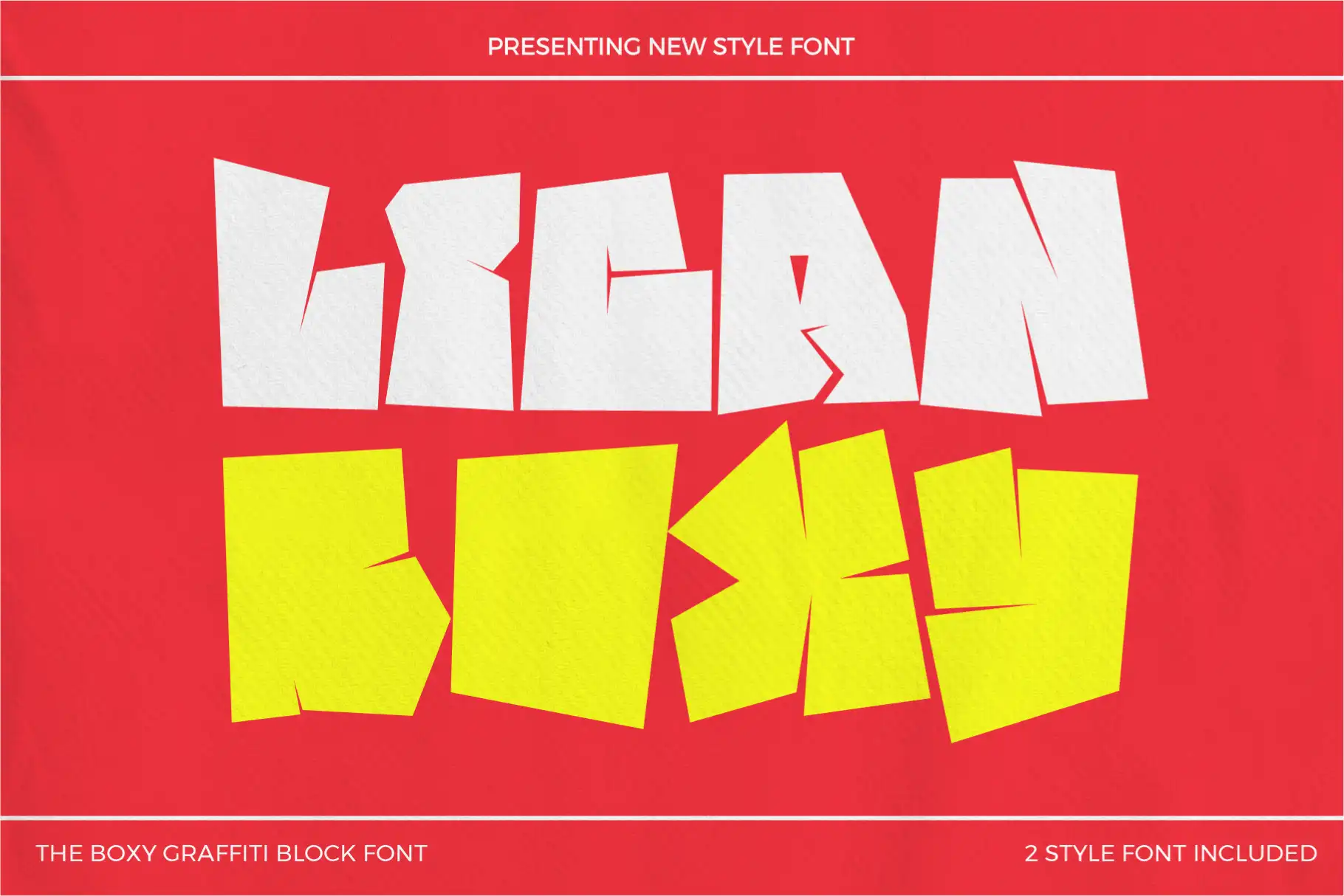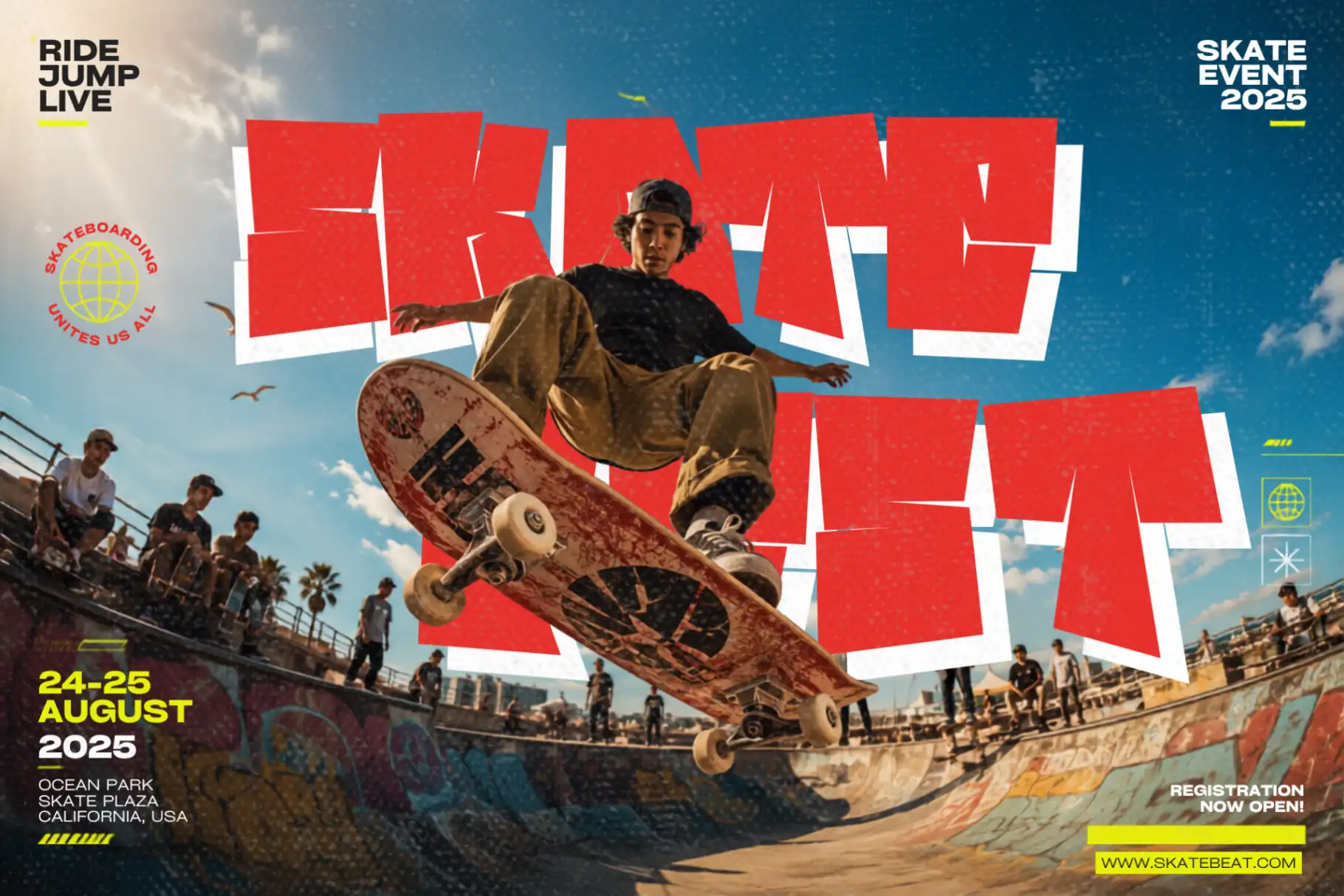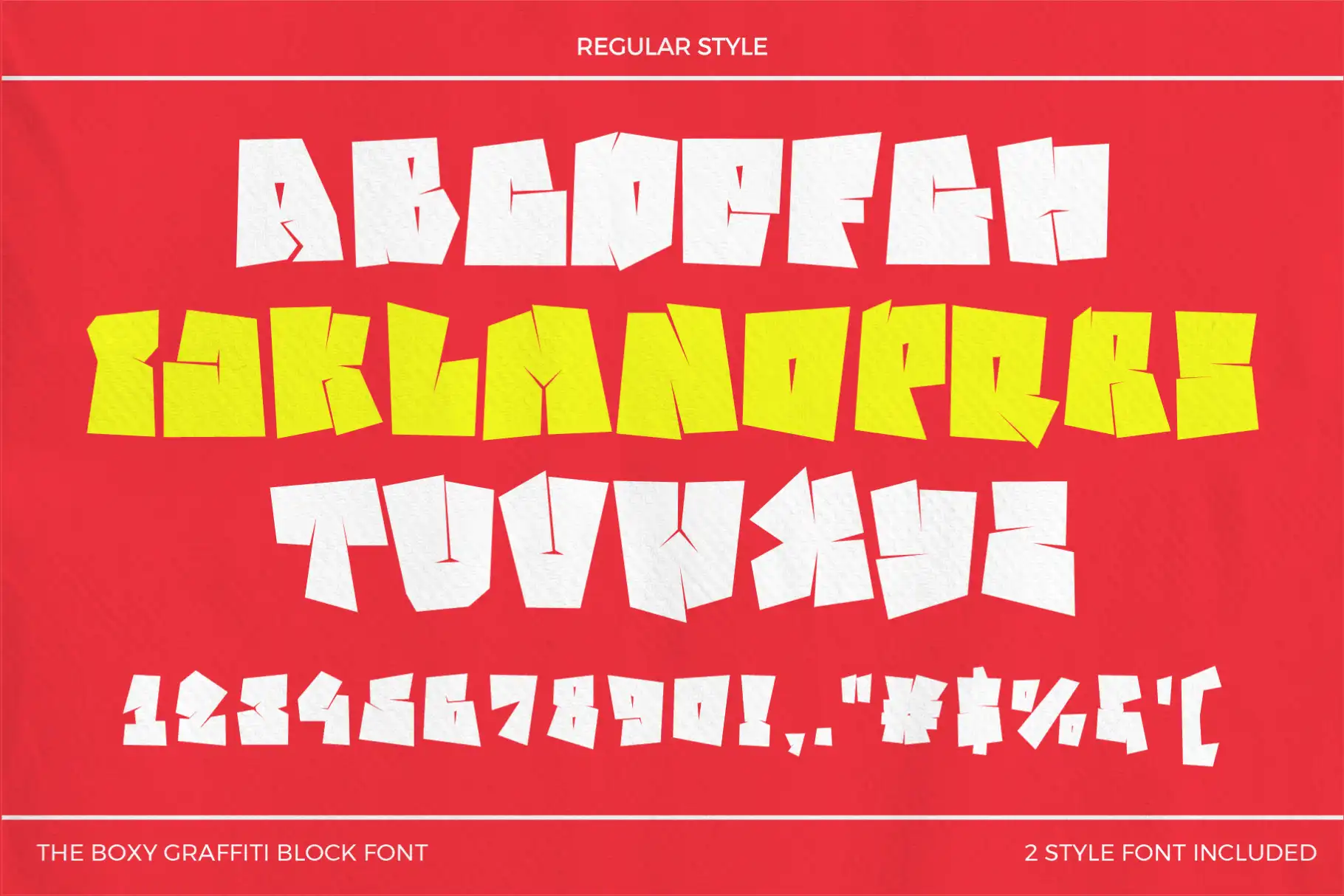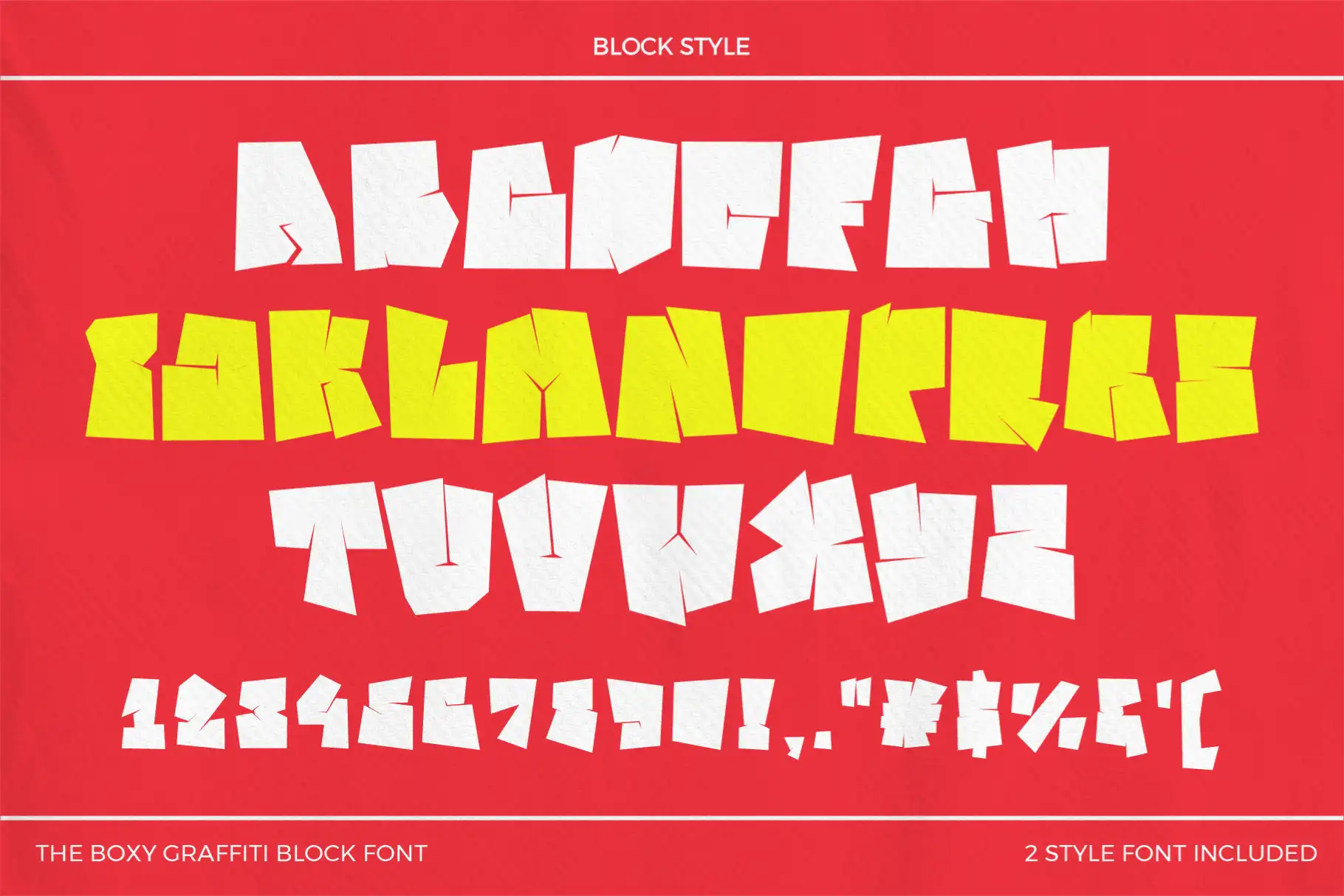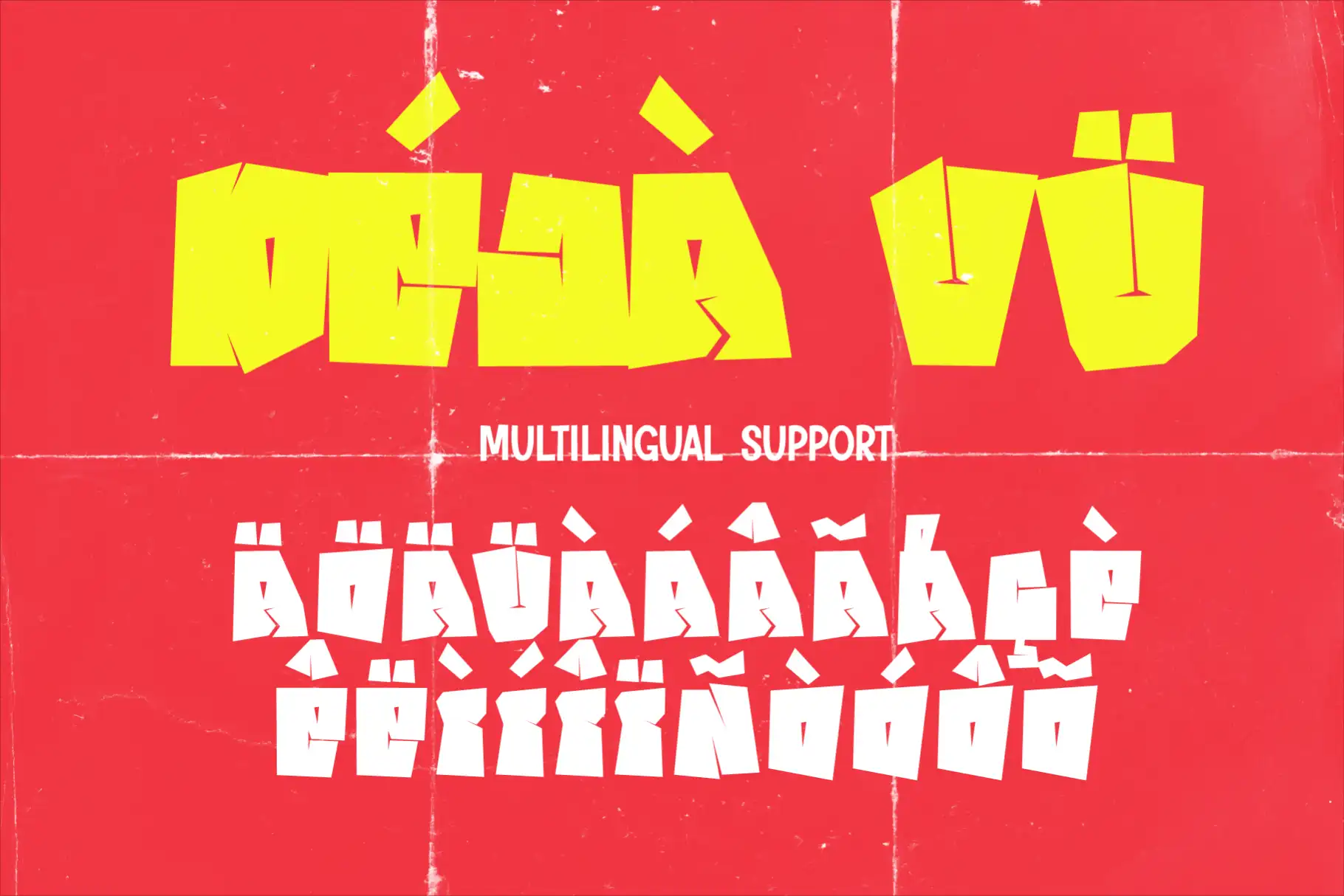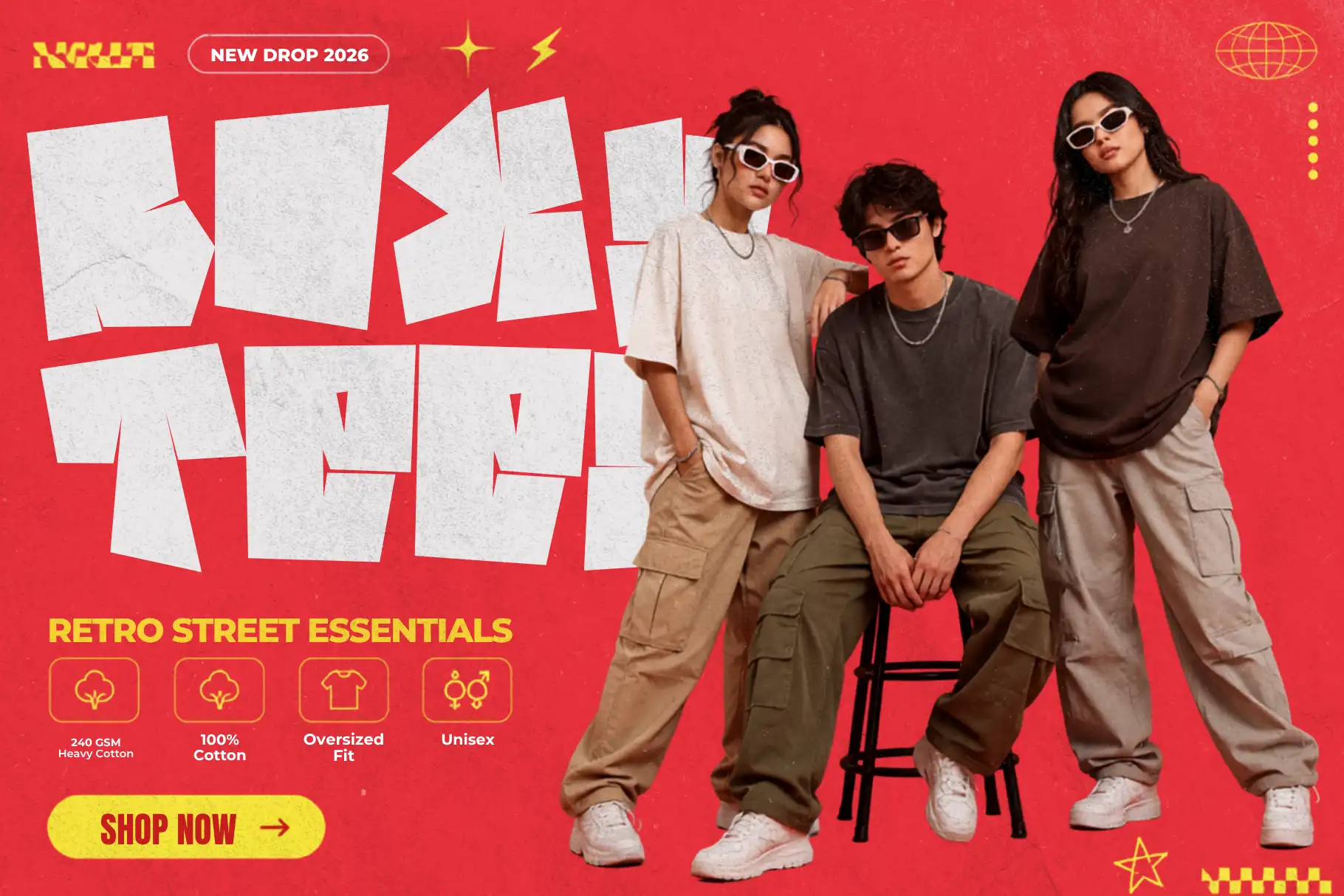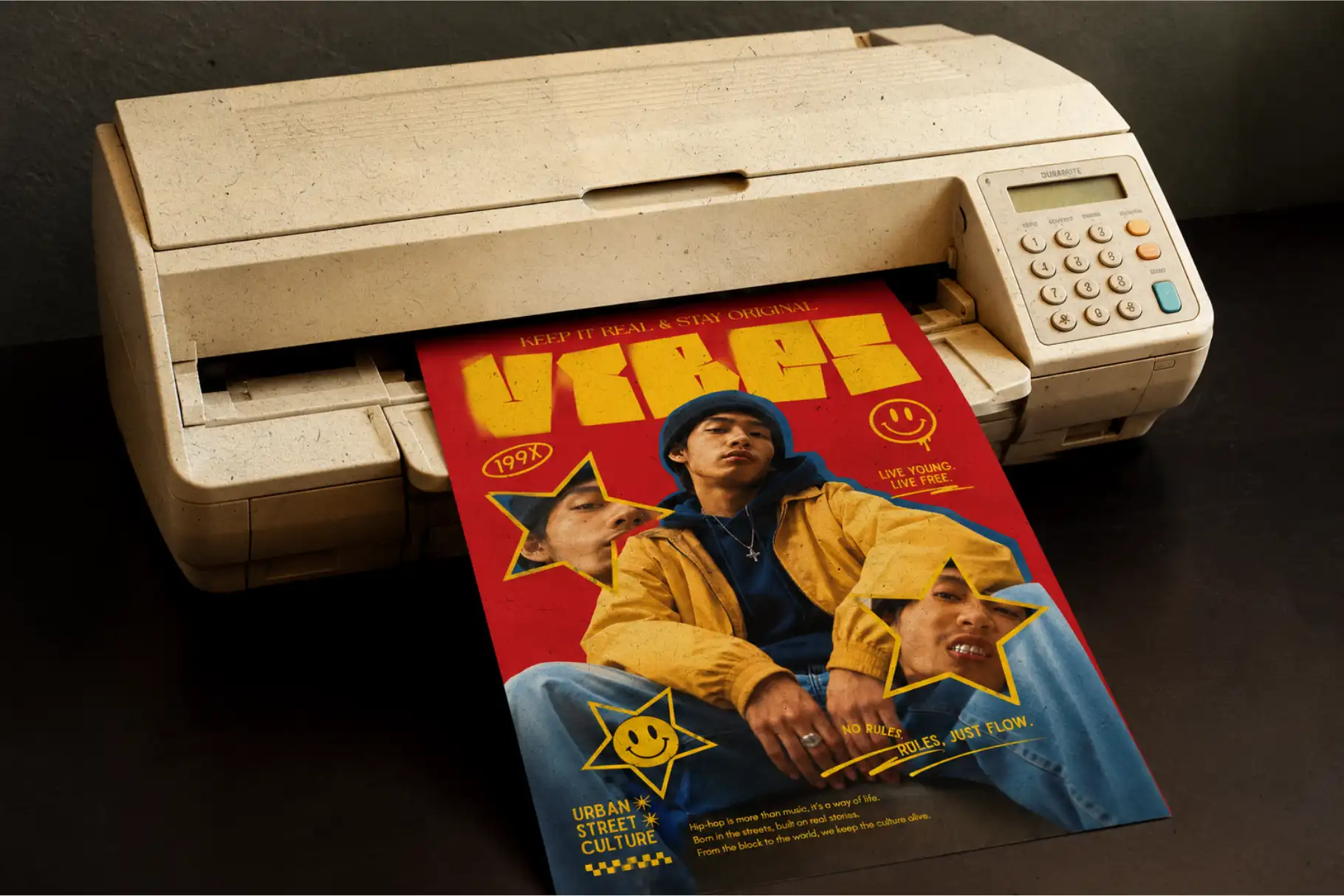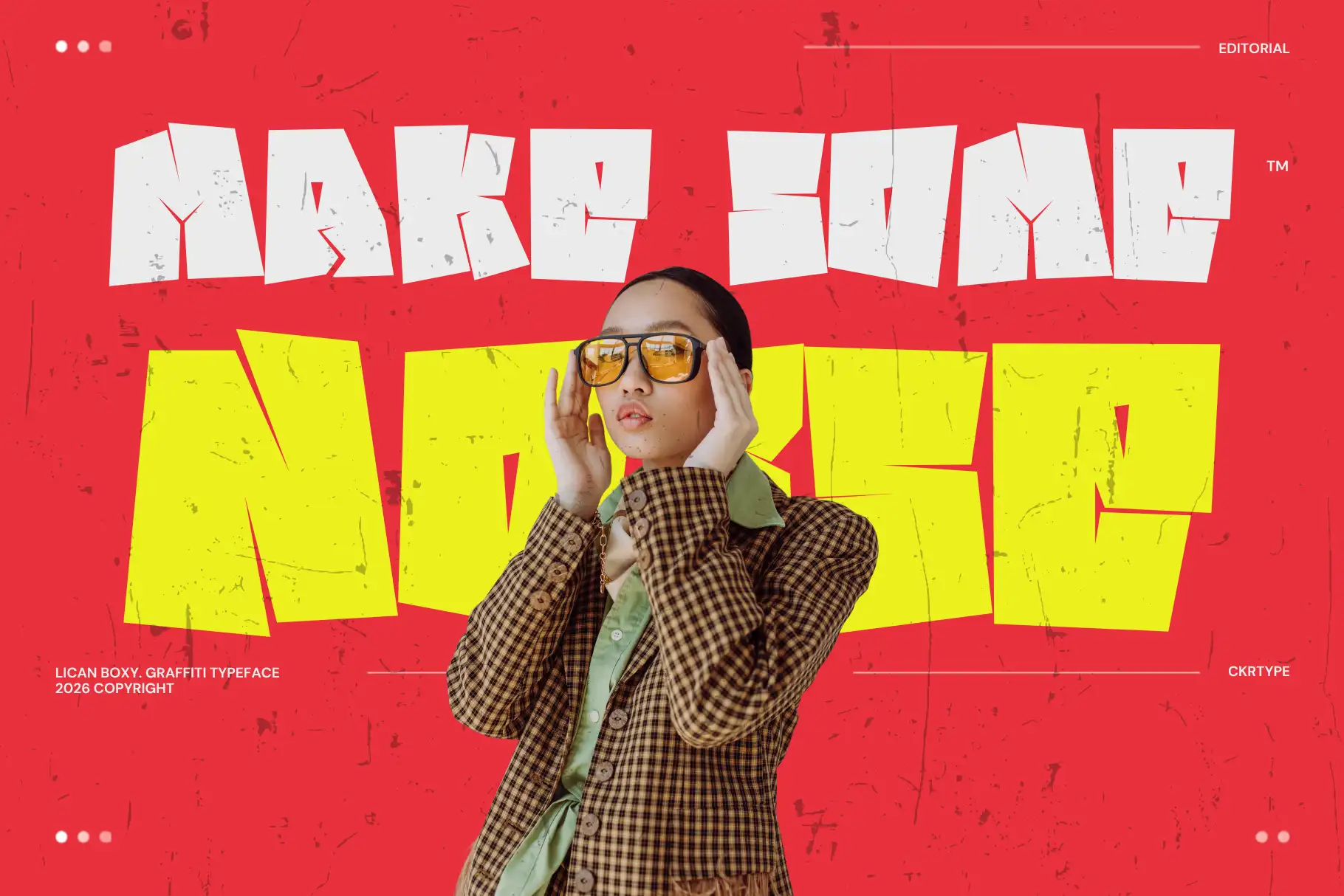
About Lican Boxy
Lican Boxy is a bold and modern graffiti font that combines strong block lettering with authentic urban street culture. Designed for creators who want clean geometry without losing the rebellious spirit of graffiti, this block graffiti font delivers powerful visual impact for every creative project. Whether you’re building a streetwear brand, designing album artwork, creating posters, or producing social media content, Lican Boxy graffiti font gives your typography a bold, confident, and unmistakably urban identity.
Inspired by classic block-style graffiti seen throughout metropolitan streets, Lican Boxy features thick letterforms, balanced proportions, and a structured appearance that makes every headline impossible to ignore. This urban graffiti font is built for designers who need typography that remains readable while still expressing authentic street culture.
Unlike highly decorative graffiti lettering, Lican Boxy graffiti font focuses on strong silhouettes and geometric construction. The result is a professional graffiti display font that works equally well for commercial branding and creative personal projects.
A Bold Block Graffiti Font with Urban Character
Lican Boxy graffiti font is carefully crafted around the concept of solid block lettering. Every character is built using thick shapes that provide exceptional readability while maintaining the bold energy associated with authentic graffiti lettering. This block graffiti font creates immediate visual authority, making it perfect for headlines, logos, merchandise, and large-format typography.
The structured design gives this graffiti font a timeless appearance. Instead of relying on excessive details, Lican Boxy uses clean construction and bold proportions to create typography that feels confident, modern, and versatile.
Because of its balanced geometry, this urban graffiti font performs beautifully across both digital and print media, ensuring your message stays clear while maintaining maximum visual impact.
Inspired by Street Culture and Modern Design
Street culture has always influenced typography, fashion, music, and visual communication. Lican Boxy graffiti font celebrates this influence by combining authentic graffiti inspiration with contemporary graphic design principles.
This graffiti font captures the confidence of block-style wall pieces while remaining practical for branding and commercial projects. Designers looking for an urban graffiti font that bridges street aesthetics with professional design will immediately appreciate the flexibility of Lican Boxy.
The bold construction also makes this block graffiti font ideal for creating memorable brand identities. Whether you’re designing logos, apparel graphics, YouTube thumbnails, esports branding, or promotional campaigns, Lican Boxy delivers typography that feels both modern and authentic.
Built for Creative Professionals
Professional designers need typography that is visually impressive without sacrificing usability. Lican Boxy graffiti font was created with that philosophy in mind.
Its consistent spacing and clean structure allow this graffiti font to perform exceptionally well in logos, packaging, advertising, digital banners, websites, editorial layouts, and merchandise.
Unlike many decorative fonts, Lican Boxy remains highly legible even at smaller sizes, making it a practical urban graffiti font for both headlines and supporting design elements.
This versatility makes Lican Boxy graffiti font an excellent addition to every designer’s type library.
Complete Character Set & Typography Features
Lican Boxy – Block and Boxy Graffiti Font comes with everything you need to create professional typography.
Uppercase Characters
Powerful uppercase letters inspired by authentic block graffiti font lettering and modern urban typography.
Multilingual Support
Supports multiple international languages, making this graffiti font suitable for worldwide branding and commercial projects.
Numbers & Punctuation
Includes complete numbers and punctuation, allowing your urban graffiti font designs to remain consistent across every project.
- Bold block graffiti font design
- Strong geometric letterforms
- Clean urban street typography
- Two professional font styles included
- Excellent readability
- Perfect for branding and merchandise
- High-quality multilingual support
- Complete uppercase characters
- Numbers and punctuation included
If you’re looking for a block graffiti font that combines urban authenticity, exceptional readability, and professional quality, Lican Boxy is the perfect choice. Add strength, confidence, and unmistakable street attitude to your next creative project with a graffiti font built for designers who refuse to blend in.